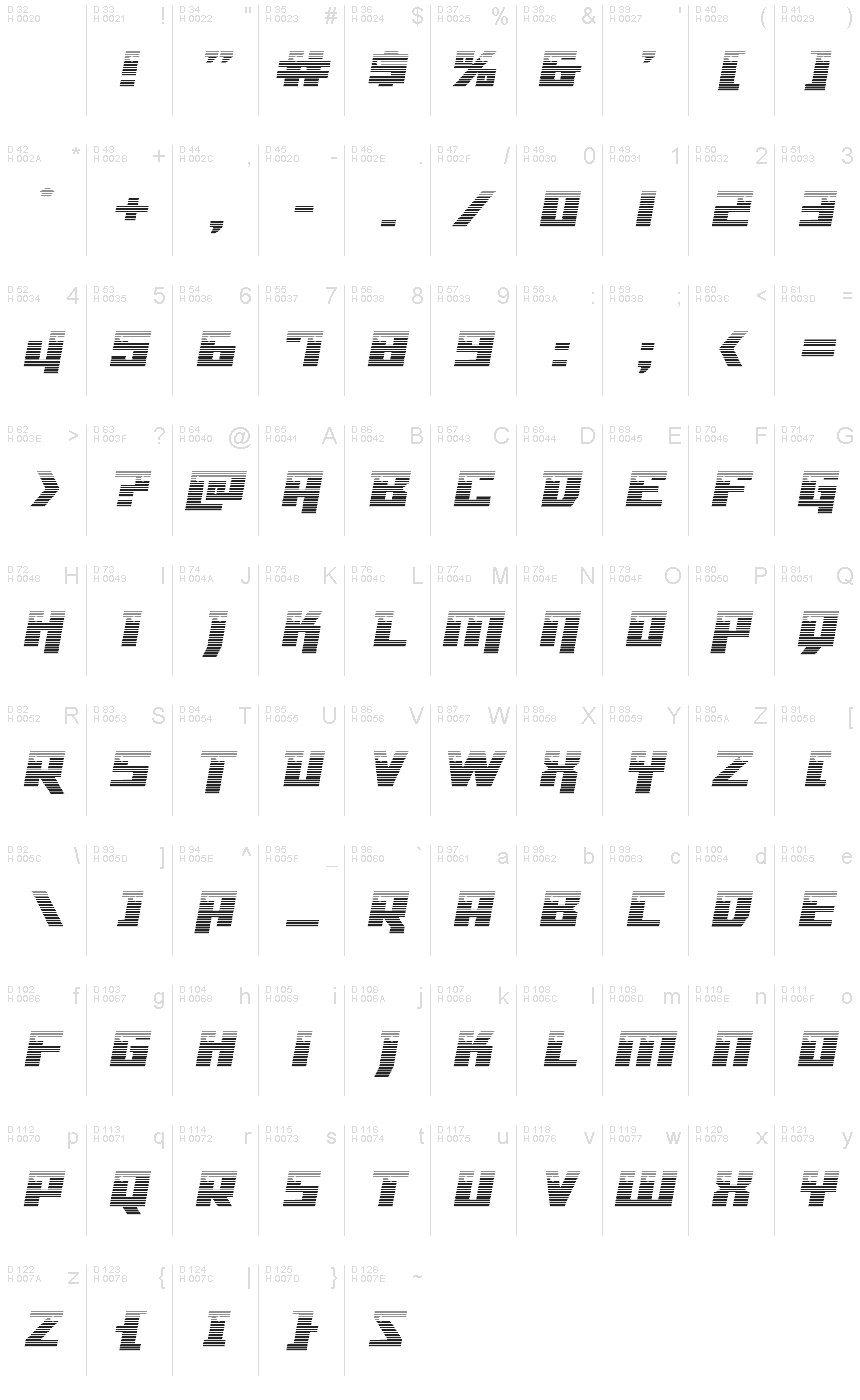
Dangerbot Gradient Expanded
Dangerbot Gradient Expanded font by Iconian Fonts is a futuristic display typeface with a bold weight and expanded width. Its tech-inspired look features sharp contrasts and geometric shapes which give it a modern aesthetic. The font’s design is perfectly balanced for attention-grabbing headings and short texts that leave a strong impression on the reader.